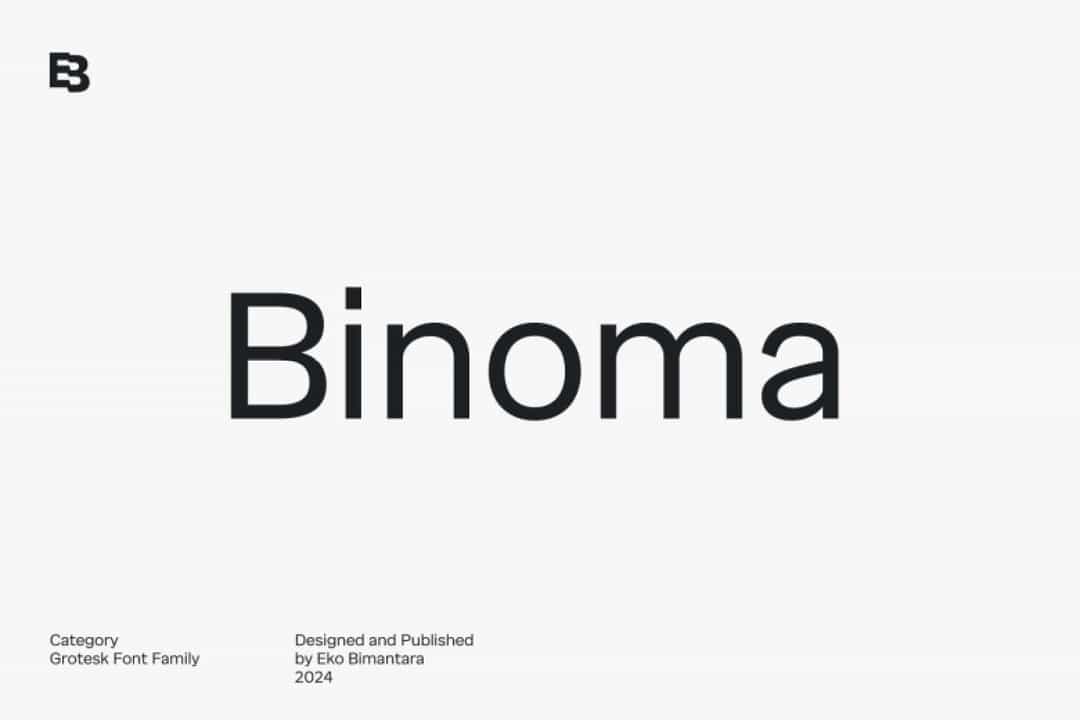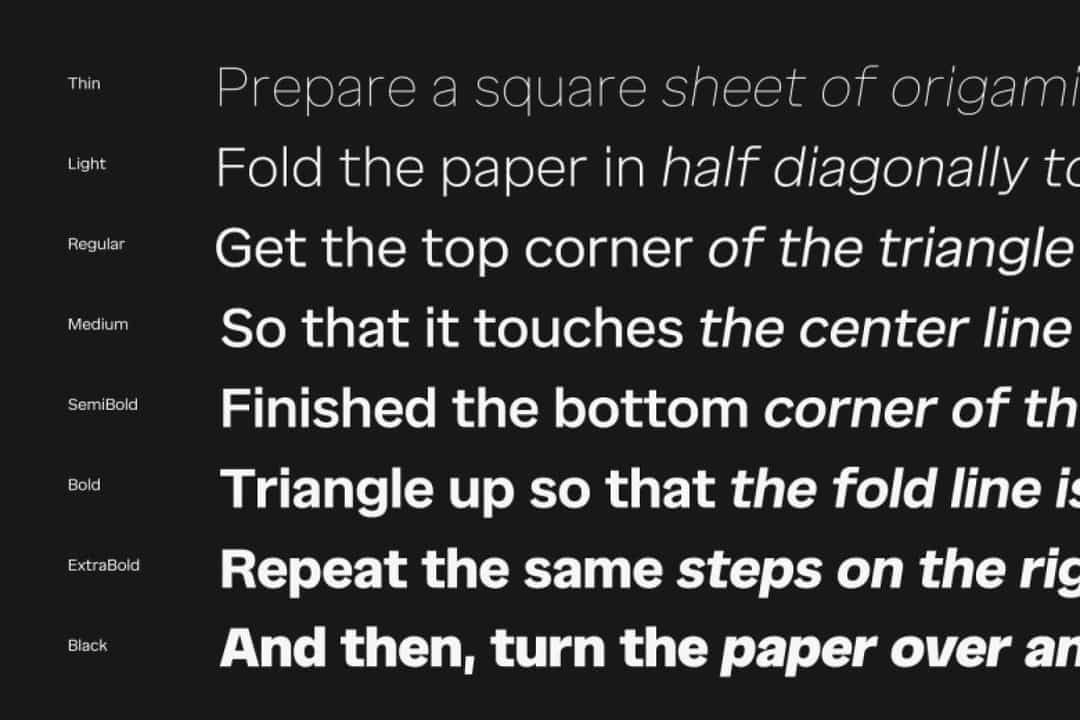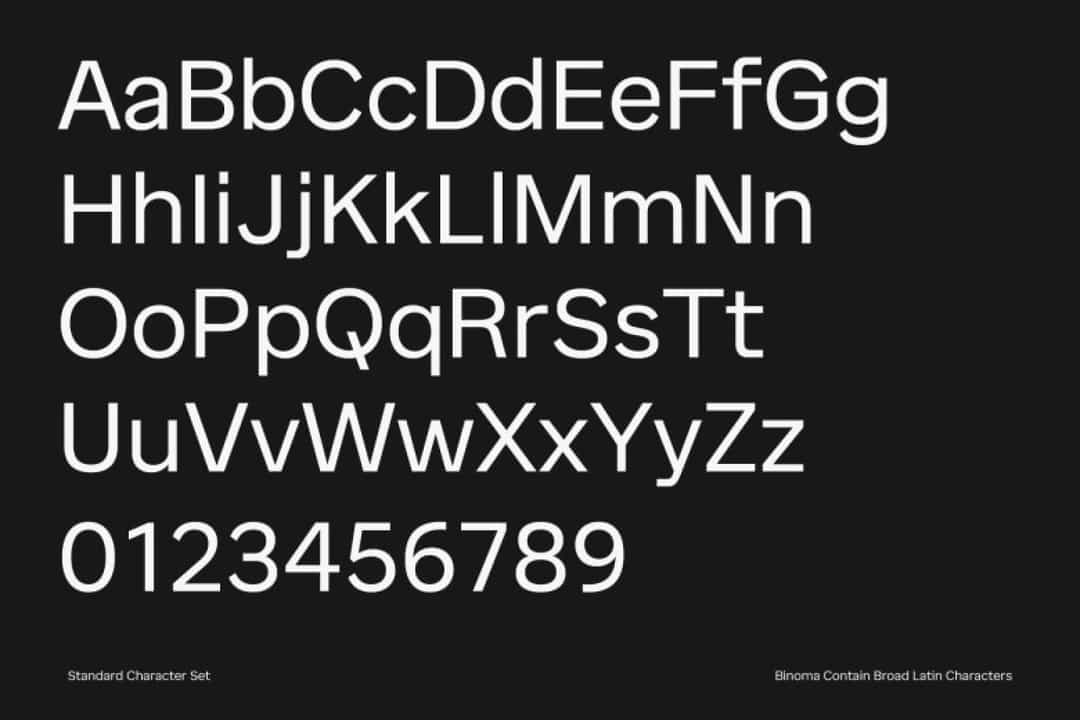
Binoma, designed by Eko Bimantara at the turn of 2024, is an impressive Grotesk sans serif font family that stands out for its sans-serif look that exudes contemporaryity and adaptability. Even though its background may be neutral, Binoma boasts its own subtle style which adds character to any style it is featured in; making Binoma suitable for display settings, headers, as well as various layouts.